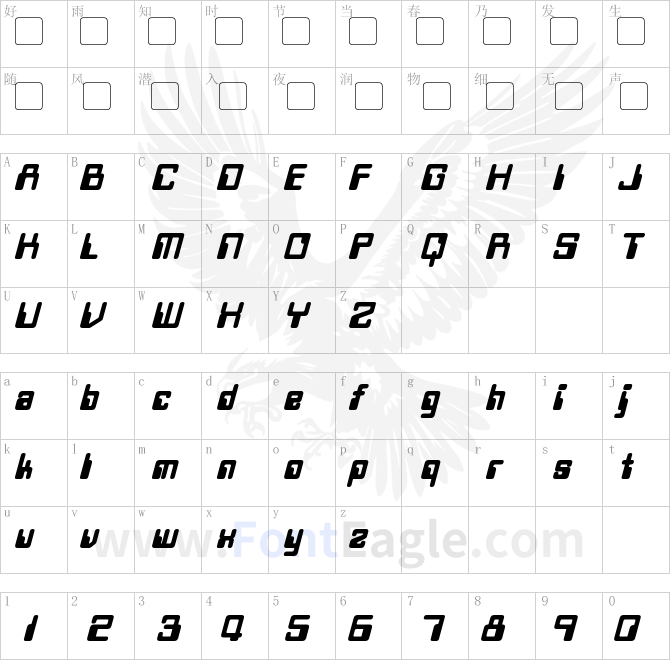
- Font name:Twobit
- Font Subfamily ID:Twobit Bold Italic:Version 1.10
- Font Full Name:Twobit Bold Italic
- Font Version:Version 1.10 July 11, 2014
- Postscript:Twobit-BoldItalic